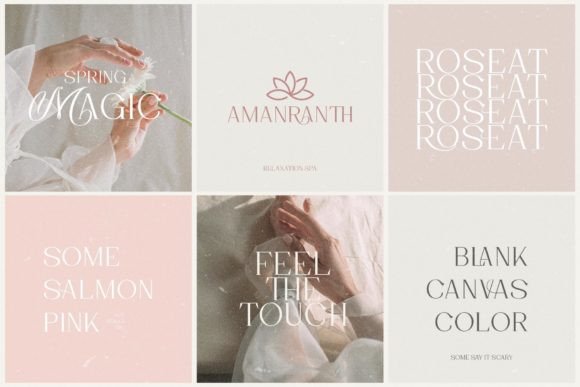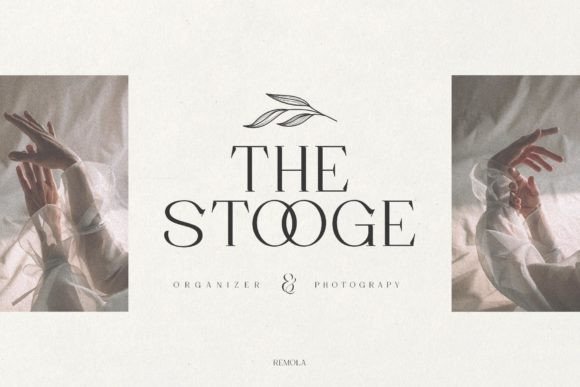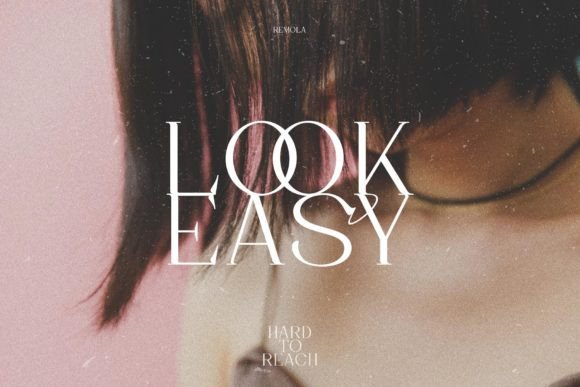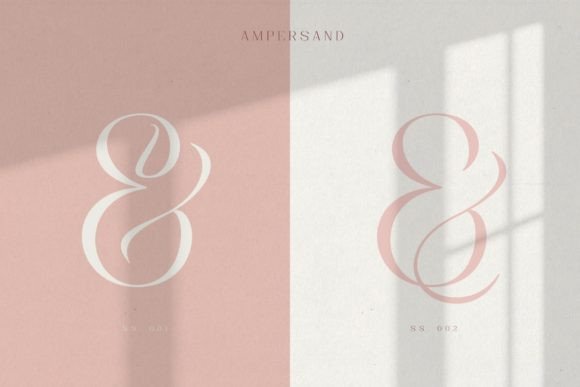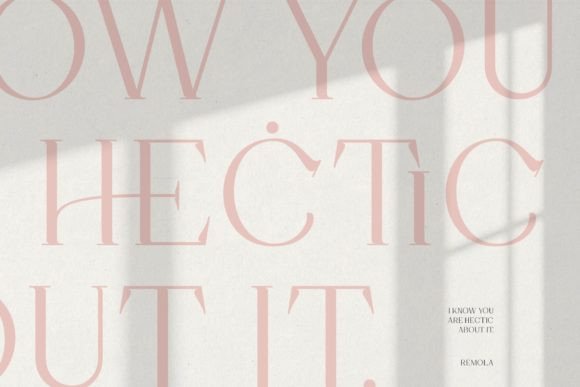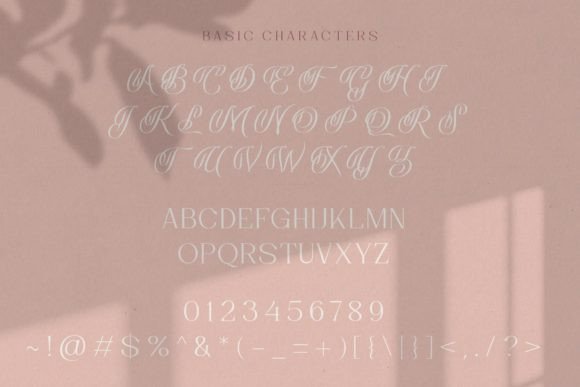
Introduction to Remola Font
Remola is a stylish and elegant serif font.
Fall in love with its incredibly versatile style and use it to create gorgeous wedding invitations, beautiful stationary art, eye-catching social media posts, and much more This font is PUA encoded which means you can access all of the amazing glyphs and ligatures with ease.
Key Features of Remola Font